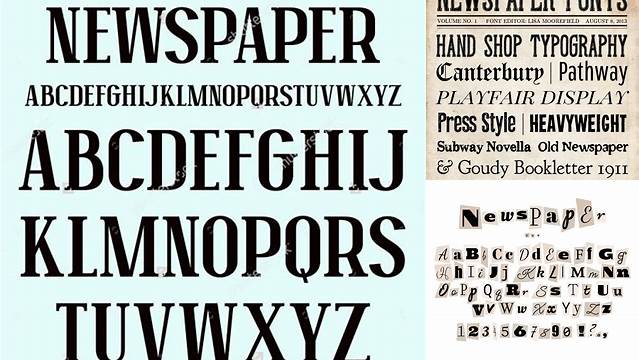
Free Newspaper Fonts: Download Top Styles Now!
Hey guys! Ever wondered what makes a newspaper look so, well, newspaper-y? It's all in the fonts! Choosing the right font can make your text look super professional and give off that classic news vibe. Whether you're designing a flyer, a website, or just want to add a touch of retro flair to your project, picking the perfect newspaper font is key. In this guide, we’re diving deep into the world of newspaper fonts, showing you where to find them, how to use them, and everything in between. Let’s get started!
1. Understanding the Essence of Newspaper Fonts
So, what exactly makes a font a "newspaper font"? These fonts typically have certain characteristics that make them readable in long-form text and suitable for print. They often feature high contrast between thick and thin strokes, clear and distinct letterforms, and a certain timeless elegance. Think about the fonts you usually see in major publications – those are the vibes we’re going for! Understanding the essence of these fonts isn’t just about aesthetics; it’s about functionality too. They’re designed to be easy on the eyes, even in small sizes and when printed on newsprint. Knowing these details helps you appreciate the craftsmanship behind each font and how it contributes to the overall reading experience.
Key Characteristics of Newspaper Fonts
When we talk about newspaper fonts, we're often referring to specific traits that make them ideal for long-form reading and print media. These fonts usually have a high level of readability, even in smaller sizes, which is crucial for newspapers where space is at a premium. Key characteristics include high contrast between thick and thin strokes, clear letterforms, and a relatively condensed design. The high contrast helps the letters stand out, while the clear letterforms ensure each character is easily distinguishable. A condensed design allows more text to fit on a single line, maximizing the use of space. These elements come together to create fonts that are both functional and aesthetically pleasing, making them perfect for the printed page.
The Role of Fonts in Newspaper Design
Fonts play a monumental role in newspaper design, setting the tone and readability of the entire publication. The role of fonts extends beyond mere aesthetics; it's about creating a cohesive and engaging reading experience. A well-chosen font can guide the reader through the text, making it easier to follow and understand. Headlines often use bolder, more eye-catching fonts to grab attention, while body text needs to be legible and comfortable for extended reading. The consistency of font usage across a newspaper establishes a visual identity, making the publication recognizable and trustworthy. Different sections might use different font styles to differentiate content, but a unified design approach is essential. Fonts also help in creating a hierarchy of information, ensuring that the most important details stand out.
Historical Context of Newspaper Typography
The historical context of newspaper typography is fascinating, with fonts evolving over centuries to meet the demands of print media. Historically, the evolution of newspaper fonts has been closely tied to technological advancements in printing. Early newspapers used heavier, more robust fonts that could withstand the rigors of printing on coarse paper using letterpress machines. As printing technology improved, fonts became more refined and legible. The 19th and 20th centuries saw the rise of classic newspaper fonts like Times New Roman and Franklin Gothic, which were specifically designed for newspaper readability. These fonts have stood the test of time, demonstrating their effectiveness in delivering news. The digital age has brought even more options, but the fundamental principles of legibility and clarity remain central to newspaper typography. Understanding this history provides a deeper appreciation for the fonts we use today.
2. Top Free Newspaper Fonts Available
Alright, let’s dive into the fun part – the fonts themselves! There are tons of amazing free newspaper fonts out there that you can download and use for your projects. We’re going to look at some of the top contenders, discussing their unique features and best uses. Whether you’re after a classic serif, a bold sans-serif, or something a little more modern, there’s a font out there for you. Top free options include classics and modern styles, ensuring you have plenty of choices to match your vision. Let’s explore some of these fantastic fonts!
Best Serif Fonts for Newspaper Style
When it comes to capturing that authentic newspaper style, serif fonts are your best bet. Serifs are those little feet or strokes at the end of letterforms, which traditionally aid readability in print. The best serif fonts for this purpose often have a timeless, classic feel, making them perfect for body text in newspapers, magazines, and books. Think about fonts like Times New Roman, Georgia, or even more modern takes like Merriweather or Lora. These fonts provide excellent readability, even in small sizes, and their serifs guide the eye across the page. Using a well-chosen serif font can instantly give your design a professional, polished look that echoes the trusted aesthetic of traditional journalism. They’re versatile enough to work in both print and digital formats, making them a valuable addition to any designer’s toolkit.
Best Sans-Serif Fonts for Newspaper Style
While serifs often dominate the body text of newspapers, sans-serif fonts have their place, particularly in headlines and subheadings. The best sans-serif fonts for newspaper style offer a clean, modern contrast to serif body text, helping to create a visual hierarchy. Fonts like Arial, Helvetica, and Open Sans are commonly used for their simplicity and legibility. More contemporary options such as Roboto and Montserrat provide a fresh, updated feel while maintaining excellent readability. Sans-serif fonts lack the serifs of their counterparts, giving them a more streamlined appearance. This makes them ideal for grabbing attention in headlines or for use in infographics and other visual elements within a newspaper layout. Using sans-serif fonts strategically can enhance the overall design and make the publication more visually engaging.
Where to Download Free Newspaper Fonts
Finding free newspaper fonts is easier than you might think, thanks to a wealth of online resources. Several websites offer a vast selection of fonts, both free and premium, that you can download for your projects. Sites like Google Fonts, Font Squirrel, and DaFont are excellent starting points. Google Fonts is particularly useful because it hosts fonts that are open-source and optimized for web use, ensuring they look great online. Font Squirrel specializes in fonts that are free for commercial use, making it a safe bet for professional projects. DaFont has a huge library of fonts, with many options available for personal use. When downloading fonts, always check the licensing agreement to ensure you’re using them appropriately. These resources make it accessible for anyone to find the perfect newspaper font for their needs, whether for a personal project or a professional publication.
3. How to Choose the Right Newspaper Font
Choosing the right newspaper font can feel a bit like Goldilocks trying to find the perfect porridge – not too formal, not too casual, but just right! It's all about finding that sweet spot between readability, style, and the overall tone of your project. How to choose involves balancing aesthetics with practical concerns, such as the font's legibility at small sizes and its suitability for long blocks of text. Let’s break down the key factors to consider so you can pick the perfect font for your needs.
Factors to Consider When Selecting a Font
When selecting a font, there are several factors to consider to ensure it meets your needs. Key considerations include readability, style, and context. Readability is paramount, especially for long-form text like newspapers. A font should be easy on the eyes, with clear letterforms and adequate spacing. Style plays a role in conveying the tone and message of your content; a classic serif font might be suitable for serious news, while a modern sans-serif might work better for a lifestyle section. The context in which the font will be used is also crucial. Will it be printed on newsprint, displayed on a website, or used in a mobile app? Each medium has its own requirements. Other factors include the font's weight (boldness), width (condensed or expanded), and its availability across different platforms. By carefully weighing these factors, you can choose a font that not only looks good but also enhances the reading experience.
Matching Fonts for Headlines and Body Text
Creating a harmonious look in newspaper design often involves pairing different fonts for headlines and body text. Matching fonts is about creating visual contrast and balance. Typically, a bolder, more eye-catching font is used for headlines to grab attention, while a more legible font is used for the main body of the text. A classic combination might be a sans-serif headline paired with a serif body text, or vice versa. The key is to choose fonts that complement each other without being too similar. For example, you might pair a bold sans-serif like Montserrat with a readable serif like Merriweather. It’s also important to consider the personality of each font. A formal headline font might pair well with a more traditional body text, while a modern headline might suit a contemporary body text. Experimentation is key, but the goal is always to create a cohesive and readable design.
Ensuring Readability in Print and Digital Media
Ensuring readability is crucial, whether you're designing for print or digital media. Readability in print depends on factors like font size, line height, and paper quality. For print, serif fonts are often preferred for body text because their serifs help guide the eye across the page, making them easier to read in long blocks of text. In digital media, factors like screen resolution, font rendering, and responsive design come into play. Sans-serif fonts tend to perform well on screens, but the choice ultimately depends on the specific font and its rendering. Line height (leading) and character spacing (tracking) also affect readability. Ample white space around text can prevent eye strain. Testing your font choices in both print and digital formats is essential to ensure they remain legible across different mediums. By paying attention to these details, you can create a reading experience that is comfortable and engaging.
4. Common Mistakes to Avoid When Using Newspaper Fonts
Using newspaper fonts effectively means knowing what to do and what not to do. There are some common pitfalls that can make your design look amateurish or even hard to read. Avoiding common mistakes is key to professional design, so let’s take a look at the most frequent missteps and how to steer clear of them. This way, you can ensure your fonts work for you, not against you!
Overusing Decorative Fonts
Overusing decorative fonts is a common pitfall in design. While decorative fonts can add personality and flair, they're often not suitable for large blocks of text. Decorative fonts should be used sparingly, typically for headlines or accents, where readability isn’t as crucial. Using them extensively can make your content difficult to read and can detract from the overall professionalism of your design. Stick to classic, legible fonts for body text and reserve decorative fonts for specific elements where you want to draw attention. It's all about balance; a touch of flair can be effective, but too much can be overwhelming. Think of decorative fonts as spices – a little can enhance the flavor, but too much can ruin the dish.
Ignoring Font Licensing
Ignoring font licensing is a serious mistake that can lead to legal issues. Font licenses dictate how you can use a font, whether it's for personal projects, commercial work, or both. Many free fonts have licenses that restrict their use, such as prohibiting commercial use or requiring attribution. Premium fonts often have more flexible licenses but may come with specific terms. Always read the license agreement carefully before using a font, especially in professional projects. Websites like Font Squirrel specialize in fonts that are free for commercial use, which can be a safe option. If in doubt, it’s always best to err on the side of caution and contact the font designer or foundry for clarification. Respecting font licenses ensures you're using fonts legally and ethically.
Not Considering Font Size and Spacing
Not considering font size and spacing can significantly impact readability. Font size and spacing are crucial for comfortable reading. If the font size is too small, the text can be difficult to read, leading to eye strain. If it’s too large, it can look overwhelming and unprofessional. Similarly, spacing, including line height (leading) and character spacing (tracking), affects how easily the eye can move across the text. Too little spacing can make the text feel cramped and dense, while too much can make it feel disjointed. The ideal font size and spacing depend on the specific font, the medium (print or digital), and the target audience. Experiment with different settings to find the optimal balance. Tools like kerning can also be used to adjust the space between specific letter pairs for improved visual harmony. Paying attention to these details ensures your text is not only legible but also visually appealing.
5. Examples of Newspapers Using Unique Fonts
To get a better feel for how newspaper fonts work in the real world, let's take a peek at some examples of newspapers that use unique and effective fonts. Examples showcase how fonts contribute to brand identity. By examining these publications, we can see how different font choices contribute to their overall aesthetic and readability. From classic broadsheets to modern online publications, the fonts they use are a big part of their identity. Let’s explore some real-world examples and see what we can learn!
The New York Times Font Choices
The New York Times is renowned for its elegant and classic font choices. The New York Times uses fonts that reflect its traditional yet authoritative tone. For its main body text, the NYT primarily uses a serif font called Cheltenham, which provides excellent readability in print. Headlines often feature a bolder, more assertive serif like Imperial. These fonts give the newspaper a timeless and trustworthy feel. The online version of the NYT uses slightly different fonts that are optimized for screen reading, but the overall aesthetic remains consistent. The careful selection of fonts helps maintain the newspaper's brand identity and ensures a high level of readability for its readers. The New York Times serves as a prime example of how classic fonts can create a sense of tradition and credibility.
The Wall Street Journal Font Choices
The Wall Street Journal, known for its financial and business news, employs fonts that convey professionalism and authority. The Wall Street Journal’s font choices emphasize clarity and credibility. The primary body text is typically set in a serif font like Miller, which is designed for excellent readability in print. Headlines often use a bolder sans-serif font to grab attention while maintaining a clean and modern look. These font choices reflect the WSJ's commitment to delivering accurate and reliable information. The overall design is clean and uncluttered, with a focus on making the content easily accessible. By using fonts that are both professional and legible, the Wall Street Journal reinforces its reputation as a trusted source of financial news. The font choices contribute to the newspaper’s serious and authoritative image.
The Guardian Font Choices
The Guardian, a British newspaper, uses a more modern and distinctive font palette. The Guardian’s use of fonts reflects its modern and progressive identity. The newspaper’s primary fonts are designed to be both readable and visually appealing, reflecting its forward-thinking approach to journalism. The Guardian often uses a combination of serif and sans-serif fonts to create visual contrast and hierarchy. For headlines, they might use a bold sans-serif to grab attention, while the body text is typically set in a legible serif font. The overall design is clean and contemporary, reflecting the newspaper's commitment to innovation and accessibility. The font choices help The Guardian stand out from more traditional publications, creating a distinct brand identity that resonates with its readership. The design choices contribute to the newspaper’s progressive and modern image.
6. Creating a Brand Identity with Newspaper Fonts
Your choice of newspaper fonts can be a powerful tool in building your brand identity. Creating a brand identity means using fonts consistently. Fonts aren't just about making text readable; they also communicate personality, values, and tone. Using a consistent set of fonts across all your materials – from your website to your social media graphics – helps create a cohesive and recognizable brand. Let's dive into how you can use fonts strategically to craft a memorable and impactful brand identity.
The Impact of Font Choice on Brand Perception
The impact of font choice on brand perception is significant. Fonts convey emotions and personality. Different fonts evoke different feelings and associations. A classic serif font might convey tradition and trustworthiness, while a modern sans-serif font might suggest innovation and simplicity. The fonts you use can influence how your audience perceives your brand. For example, a law firm might choose a serious and formal font to convey professionalism, while a creative agency might opt for a more playful and unique font to showcase their creativity. Consistency in font usage across all your branding materials helps reinforce your brand identity. By carefully selecting fonts that align with your brand values and message, you can create a strong and lasting impression on your audience. The right font choice can be a powerful tool in shaping brand perception.
Consistency in Font Usage Across Platforms
Consistency in font usage across platforms is crucial for maintaining a strong brand identity. Consistency helps build brand recognition. Whether it's your website, social media profiles, print materials, or email newsletters, using the same fonts helps create a cohesive and recognizable brand. When your audience sees your fonts, they should immediately associate them with your brand. This consistency builds trust and professionalism. If you use different fonts across different platforms, it can create confusion and dilute your brand message. Tools like brand style guides can help ensure consistency by outlining your font choices and usage guidelines. By maintaining a consistent visual identity, you strengthen your brand and make it more memorable to your audience. Consistency is key to building a strong and lasting brand.
Developing a Font Style Guide for Your Brand
Developing a font style guide for your brand is an essential step in ensuring consistency and professionalism. A style guide ensures brand consistency. A font style guide outlines the specific fonts your brand uses, including their weights, sizes, and when and where to use them. This guide serves as a reference for anyone creating content for your brand, ensuring that your visual identity remains consistent across all platforms. Your font style guide should include primary fonts for headlines and body text, as well as any secondary fonts you might use for specific purposes. It should also specify font sizes, line heights, and letter spacing for different applications. By creating a detailed font style guide, you can streamline the design process and maintain a cohesive brand image. This guide is a valuable tool for both internal teams and external partners, ensuring everyone is on the same page when it comes to font usage.
7. Modern Takes on Classic Newspaper Fonts
Even though classic newspaper fonts are timeless, there are plenty of modern takes that bring a fresh twist to the traditional style. Modern takes update classic styles for new contexts. These updated fonts often maintain the readability and elegance of their predecessors but with a more contemporary feel. They might feature subtle variations in letterforms, improved spacing, or a wider range of weights to suit different design needs. Let’s explore some of these modern fonts that offer a nod to the past while looking firmly towards the future.
Updating Traditional Serif Fonts
Updating traditional serif fonts involves tweaking classic designs to better suit modern applications. Updating serifs means refining classic features. This might include streamlining the serifs, adjusting the contrast between thick and thin strokes, or modifying the letter proportions. The goal is to retain the readability and elegance of the original font while giving it a fresh, contemporary feel. Modern serif fonts often come in a wider range of weights, allowing for greater flexibility in design. Some popular examples of updated serif fonts include Merriweather, Lora, and Playfair Display. These fonts offer a nod to the traditional serif aesthetic but with a more modern sensibility. By updating classic serifs, designers can create text that feels both timeless and current, making them a versatile choice for a variety of projects.
The Rise of Geometric Sans-Serif Fonts
The rise of geometric sans-serif fonts marks a significant trend in modern typography. Geometric sans-serifs offer clean, modern look. These fonts are characterized by their clean lines, simple shapes, and geometric forms. They often have a minimalist aesthetic, making them ideal for headlines, logos, and branding. Popular examples of geometric sans-serif fonts include Futura, Montserrat, and Circular. These fonts convey a sense of modernity and sophistication. They work well in both print and digital environments, making them a versatile choice for a variety of design projects. The geometric sans-serif trend reflects a broader shift towards simplicity and clarity in design, emphasizing clean lines and straightforward communication. These fonts are a favorite among designers seeking a modern and uncluttered look.
Blending Serif and Sans-Serif Elements
Blending serif and sans-serif elements is a creative way to achieve a unique and balanced typographic style. Blending elements creates visual interest. This approach involves combining the readability of serif fonts with the modernity of sans-serif fonts in a single design. For example, you might use a serif font for the body text and a sans-serif font for the headlines, or vice versa. The key is to choose fonts that complement each other without clashing. Some fonts even incorporate both serif and sans-serif elements within their letterforms, creating a hybrid style. This blending approach can add visual interest and depth to your design. It also allows you to convey different aspects of your brand's personality, such as tradition and innovation. By skillfully blending serif and sans-serif elements, you can create a typographic style that is both distinctive and harmonious.
8. The Future of Newspaper Typography
The future of newspaper typography is looking pretty exciting! With the rise of digital media and ever-evolving technology, fonts are adapting and innovating in some cool ways. The future involves digital adaptability and innovation. We're seeing new fonts designed specifically for screens, as well as dynamic fonts that adjust to different viewing conditions. Let's take a peek into what's next for newspaper fonts and how they'll continue to shape the way we read and engage with news.
Fonts Designed for Digital Screens
Fonts designed for digital screens are becoming increasingly important in today's digital age. Digital fonts prioritize screen readability. These fonts are optimized for clarity and legibility on various screen resolutions and devices. They often have adjustments in letter spacing, stroke thickness, and overall design to ensure they render well on screens. Many factors, such as pixel density, screen size, and rendering engines, are considered in the design process. For example, fonts for mobile devices need to be highly legible at small sizes. Popular examples of screen-optimized fonts include Roboto, Open Sans, and Lato. These fonts are widely used on websites, apps, and other digital platforms. As digital media continues to grow, the demand for fonts specifically designed for screens will only increase, driving further innovation in typography.
The Role of Variable Fonts
The role of variable fonts is set to revolutionize the way we use typography. Variable fonts offer flexible customization. Variable fonts are a single font file that can contain a wide range of styles, such as weights, widths, and optical sizes. This allows for greater flexibility and control over font appearance. Instead of needing separate font files for each style, a single variable font can cover a multitude of variations. This results in smaller file sizes and improved performance, especially on websites. Variable fonts also enable dynamic adjustments, such as adapting the font weight to different screen sizes or user preferences. This technology is particularly useful for creating responsive designs that look great on any device. As variable fonts become more widely supported, they are poised to transform the landscape of digital typography, offering designers unprecedented control and efficiency.
AI and the Evolution of Font Design
AI and the evolution of font design are beginning to intersect in fascinating ways. AI can assist in font creation and optimization. Artificial intelligence is being used to automate certain aspects of font design, such as generating letterforms and spacing. AI can also help optimize fonts for specific applications, such as improving readability on screens or reducing file sizes. While AI is unlikely to replace human font designers entirely, it can serve as a powerful tool to enhance the design process. AI algorithms can analyze existing fonts, identify patterns, and suggest improvements. They can also help create new fonts more efficiently. As AI technology continues to advance, we can expect to see even more innovative applications in the field of typography, leading to the development of more sophisticated and user-friendly fonts. The combination of human creativity and artificial intelligence holds great potential for the future of font design.
So there you have it, guys! A complete guide to newspaper fonts, from understanding their essence to exploring modern takes and future trends. Whether you’re crafting your own newspaper layout or just want to add a touch of classic elegance to your designs, knowing your fonts is a game-changer. Happy designing!